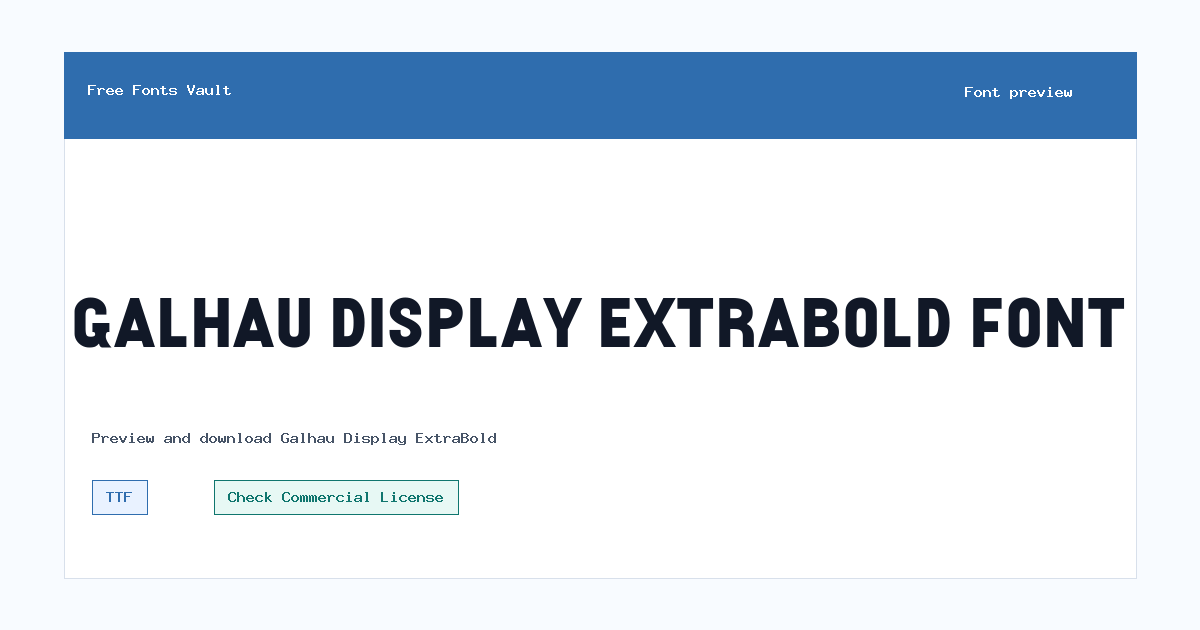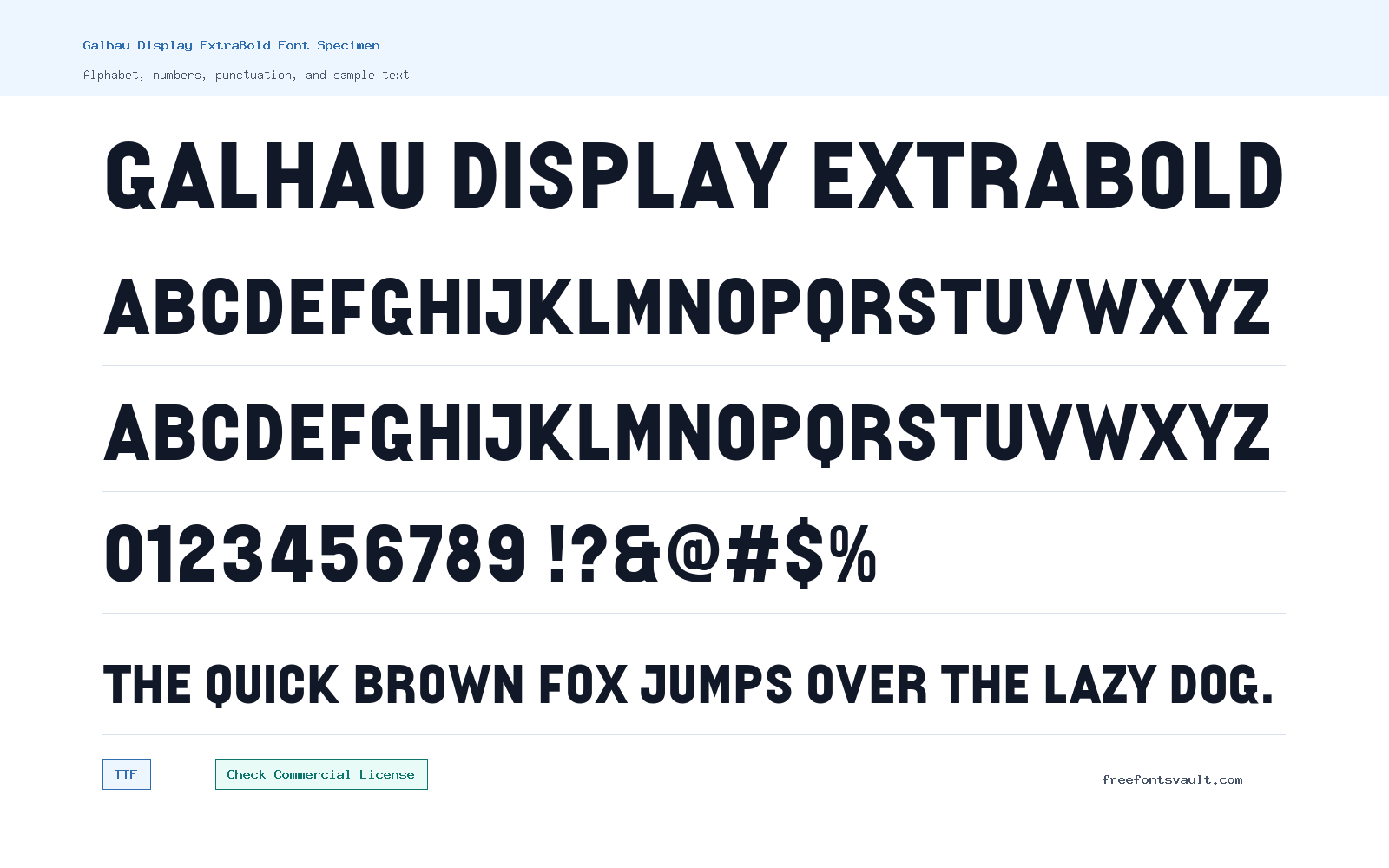
Galhau Display ExtraBold
Galhau Display ExtraBold font.
Galhau Display ExtraBold is a heavy display font made for short, confident text. Its thick weight gives titles, posters, and graphic layouts a strong visual presence without needing much decoration.
About Galhau Display ExtraBold
Galhau Display ExtraBold works best when the words are meant to be seen quickly. The ExtraBold weight gives letters a dense, solid look, so it suits headlines, cover text, banners, social graphics, and other places where a compact message needs impact. The download includes TrueType font files, including the main ExtraBold style and a slanted version, giving you a little more flexibility for emphasis or angled headline treatments.
Because this is a display-style font, use it with care in long paragraphs. It will usually perform better in short words, names, labels, titles, and callouts than in body copy. Test your own text in the preview first, especially if you plan to use all caps, tight spacing, or small sizes. For a cleaner layout, pair it with a simple sans serif or readable serif for supporting text, and let Galhau Display ExtraBold handle the main visual focus.
- ExtraBold display weight for strong titles and short text
- Posters, banners, and large headline designs
- Logos, social media graphics, labels, and short display text
Use Galhau Display ExtraBold for short, high-impact text. Try wider letter spacing for all-caps settings, avoid long paragraphs, and pair it with a quieter text font for readability. ExtraBold works best for short, high-impact wording. Use it for hero text, posters, cover graphics, or a single product name where the heavier weight can become the main visual element. Avoid long paragraphs in this cut because the strong strokes work better when surrounded by space. If a phrase starts to feel heavy, reduce the number of words, increase line height, or move secondary text into a lighter companion font.
What is this font best used for?
It is best for short display text such as headlines, posters, cover titles, labels, and social graphics where a bold look is useful.
Should I use Galhau Display ExtraBold for body text?
It is better for display use than long reading text. For paragraphs, pair it with a simpler font and use Galhau Display ExtraBold for headings or emphasis.